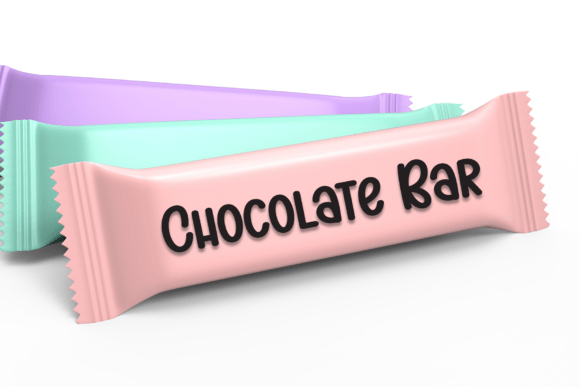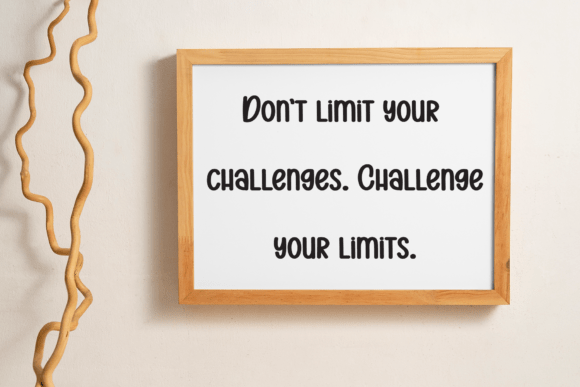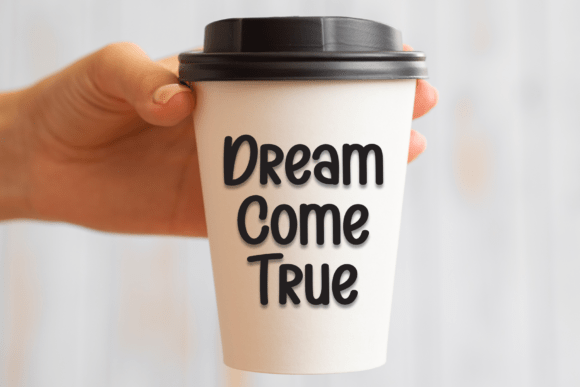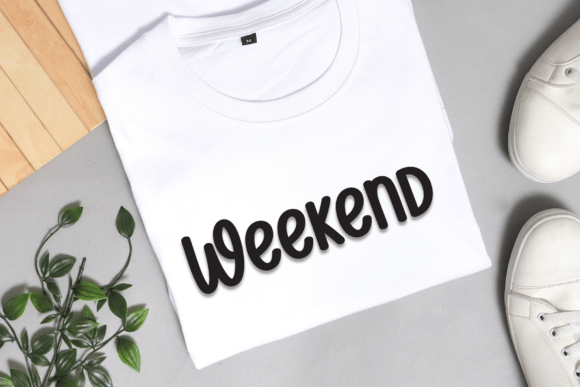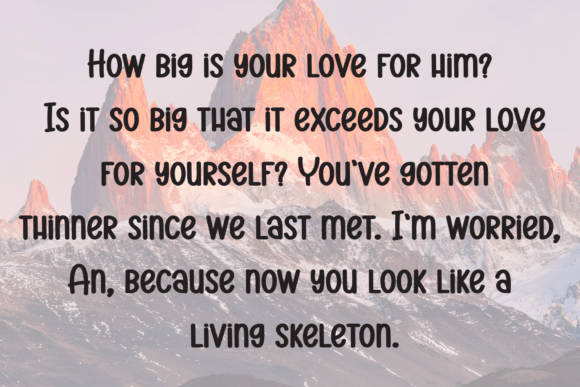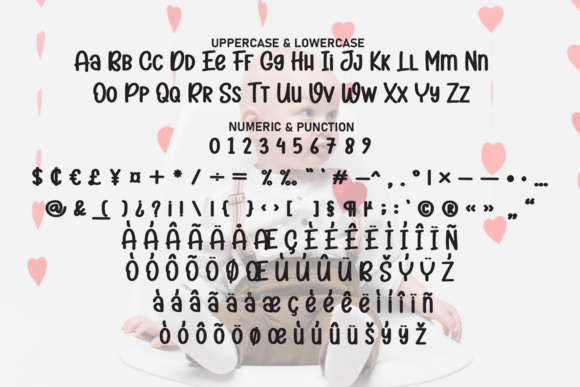
Babylove Font: The Perfect Choice for Designers and Crafters
In the world of typography, fonts play a crucial role in conveying the tone and personality of a brand or design. If you’re a designer or crafter looking for a font that exudes a fresh, friendly vibe, look no further than Babylove Font. This casual and neat display font is perfect for a variety of design projects, from packaging and posters to social media graphics and more.
What is Babylove Font?
Babylove Font is a display font designed to radiate a sense of approachability and charm. Its clean lines and relaxed structure make it an excellent choice for designers who want to add a touch of friendliness to their projects. Whether you’re working on a branding campaign, creating eye-catching packaging, or designing engaging social media graphics, Babylove Font is the perfect choice.
Key Features of Babylove Font
- Clean Lines: Babylove Font features clean lines that give it a crisp, modern look. This makes it perfect for designs that require a bit of sophistication and elegance.
- Relaxed Structure: The font’s relaxed structure adds a touch of casualness, making it ideal for designs that need to feel approachable and friendly.
- Fresh and Friendly Vibe: Babylove Font is designed to radiate a fresh, friendly vibe that’s perfect for brands and designs that want to connect with their audience on a personal level.
- Polished Appearance: Despite its casual nature, Babylove Font maintains a polished appearance that’s perfect for designs that require a bit of refinement.
Use Cases for Babylove Font
Babylove Font is a versatile font that can be used in a variety of design projects, including:
- Packaging: Add a touch of friendliness to your product packaging with Babylove Font. Its clean lines and relaxed structure make it perfect for labels, tags, and other packaging materials.
- Posters: Create eye-catching posters with Babylove Font. Its bold, yet approachable design makes it perfect for posters that need to grab attention.
- Social Media Graphics: Use Babylove Font to create engaging social media graphics that connect with your audience. Its friendly vibe and polished appearance make it perfect for social media posts, ads, and more.
Why Choose Babylove Font?
So, why choose Babylove Font for your design projects? Here are just a few reasons:
- Unique Personality: Babylove Font has a unique personality that sets it apart from other fonts. Its fresh, friendly vibe is perfect for brands and designs that want to connect with their audience on a personal level.
- Versatility: Babylove Font is a versatile font that can be used in a variety of design projects. Its clean lines and relaxed structure make it perfect for packaging, posters, social media graphics, and more.
- Ease of Use: Babylove Font is easy to use and pairs well with a variety of other fonts. This makes it perfect for designers who want to create cohesive designs that are easy to read and understand.
Tips for Using Babylove Font
Here are a few tips for using Babylove Font in your design projects:
- Pair with Other Fonts: Babylove Font pairs well with a variety of other fonts. Try pairing it with a bold font for headings and a clean font for body text.
- Use for Headings: Babylove Font is perfect for headings and titles. Its bold, yet approachable design makes it perfect for grabbing attention.
- Experiment with Colors: Babylove Font looks great in a variety of colors. Experiment with different colors to find the perfect look for your design.
In conclusion, Babylove Font is a versatile and charming font that’s perfect for designers and crafters. Its fresh, friendly vibe and polished appearance make it perfect for a variety of design projects, from packaging and posters to social media graphics and more. With its clean lines, relaxed structure, and unique personality, Babylove Font is sure to add a touch of charm and clarity to your designs.